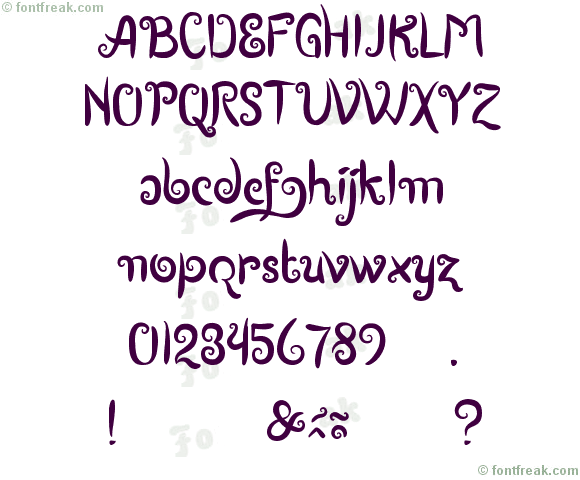
BoutiquesofMerauke
Boutiques of Merauke
BoutiquesofMerauke is a charming decorative font created by Adien Gunarta, designed to captivate and inspire. This typeface falls within the display category, making it an ideal choice for projects that require a touch of creativity and flair. The font features playful letterforms with a whimsical style, characterized by a medium stroke weight and moderate contrast that adds to its inviting appearance. The generous spacing between characters enhances readability while allowing the unique shapes to shine.
This font is particularly well-suited for a variety of creative applications. Wedding invitations can benefit from its romantic and elegant vibe, making special occasions even more memorable. Additionally, BoutiquesofMerauke is perfect for restaurant menus, where its distinctive aesthetic can help convey a unique dining experience. Movie posters and book covers also stand to gain from this font's artistic qualities, drawing in audiences with its eye-catching design. Content creators and graphic designers will find it an excellent asset for branding projects, social media graphics, and promotional materials.
What truly sets BoutiquesofMerauke apart is its blend of elegance and playfulness, making it a versatile choice for anyone seeking to add a unique touch to their designs. Whether used in print or digital formats, this font brings a sense of personality that can elevate any project. For those interested, the BoutiquesofMerauke font free download is available, inviting you to explore its delightful characteristics and incorporate them into your creative endeavors.